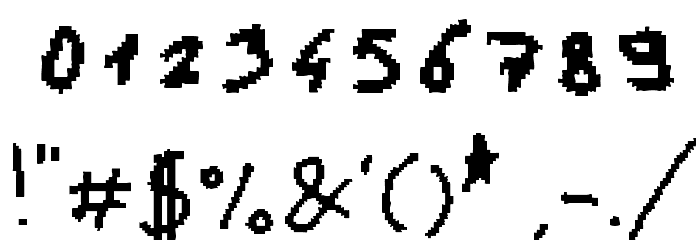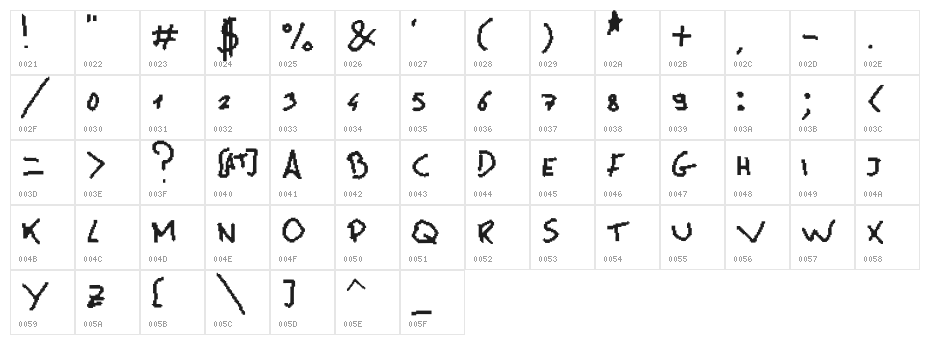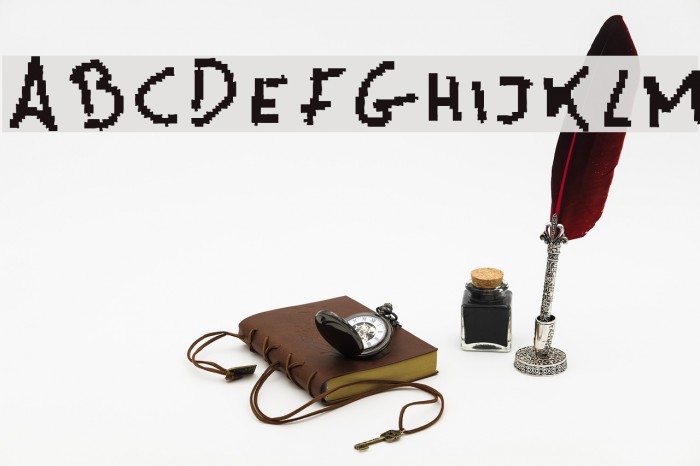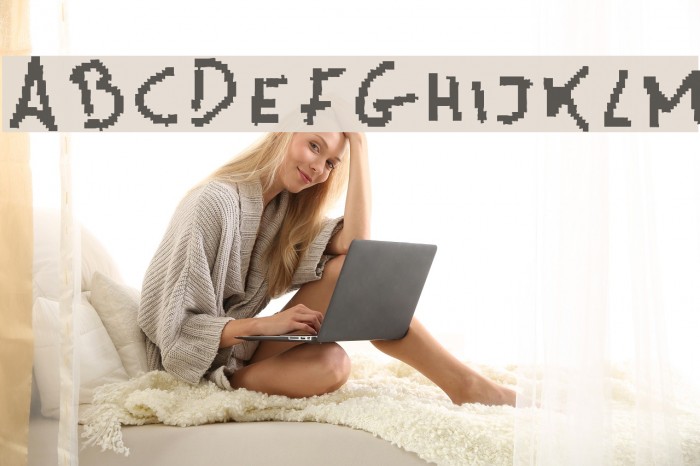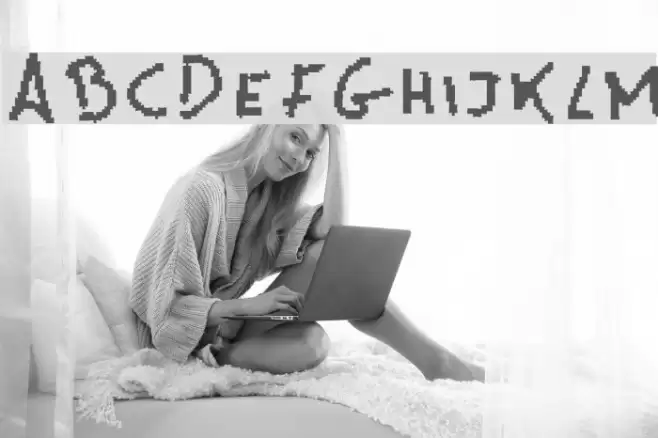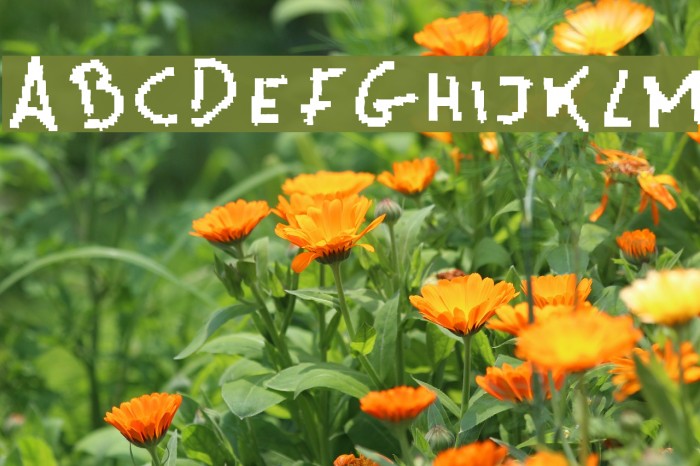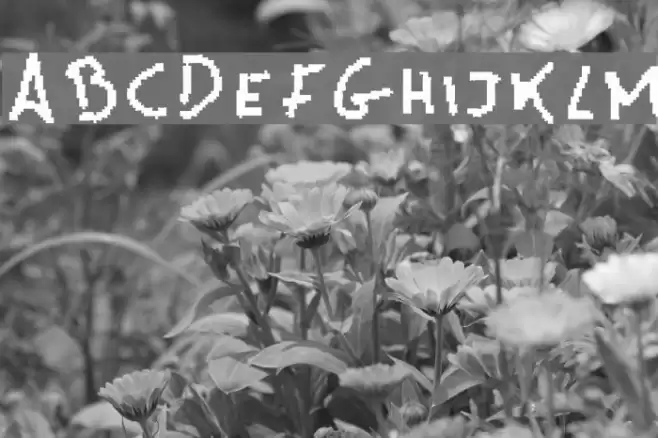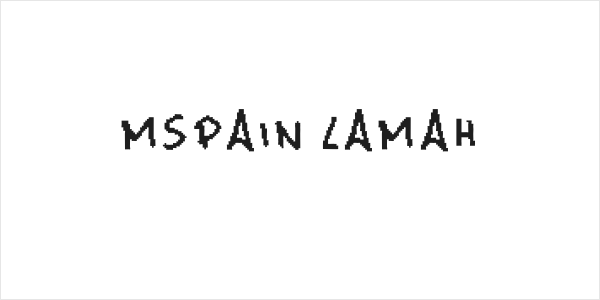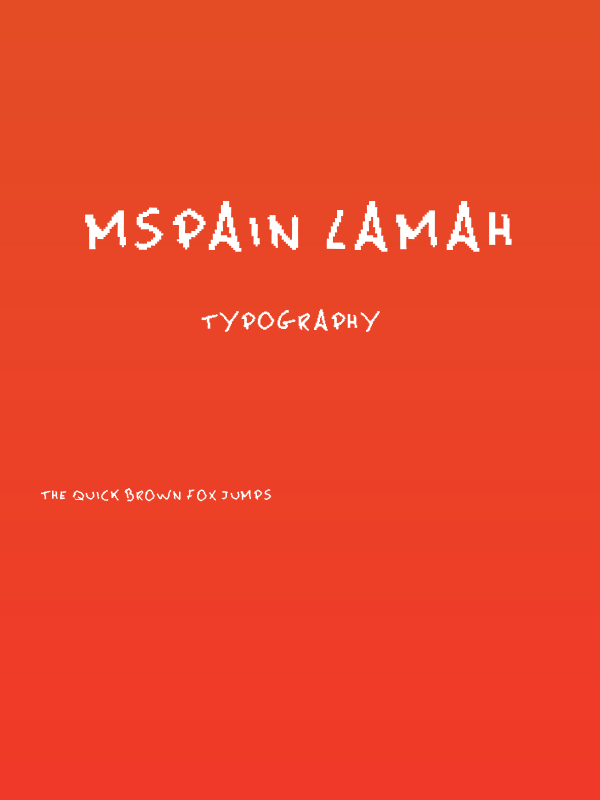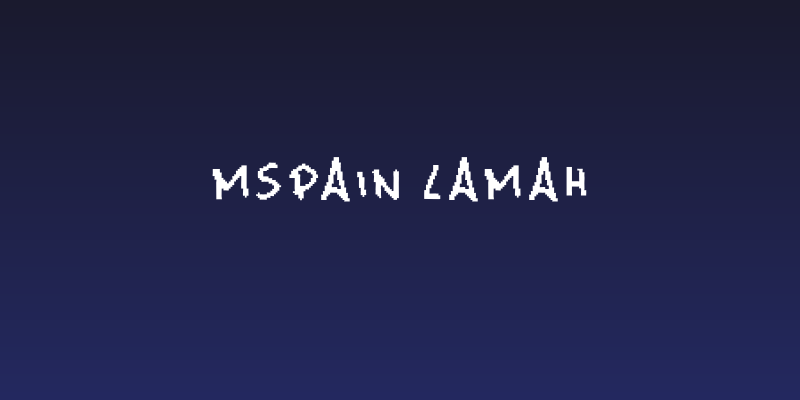
MsPain lamah Font
MsPain lamah Description
This font features a playful and irregular handwritten style, characterized by its uneven strokes and quirky, casual appearance. The letters have a spontaneous and dynamic feel, with varying thickness and a slightly rough texture that adds to its charm. The uppercase and lowercase letters are distinct, with some letters having exaggerated curves or angles, contributing to its informal and artistic vibe. The numbers and special characters maintain this whimsical style, making it suitable for creative and informal projects.
| Proposed Projects | Ideal for children's books, creative posters, informal invitations, and artistic branding. |